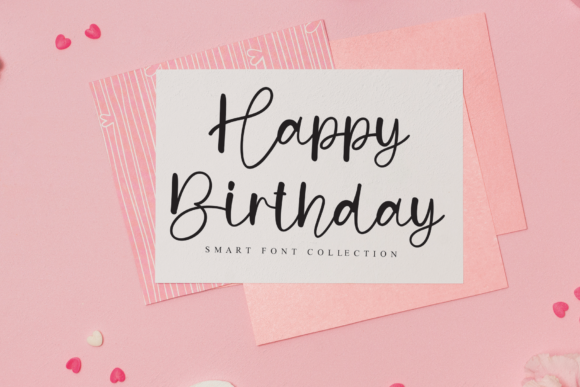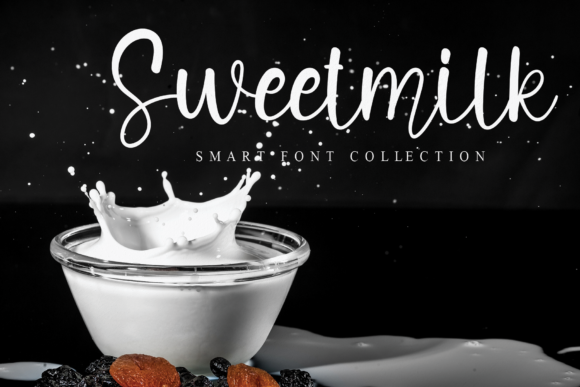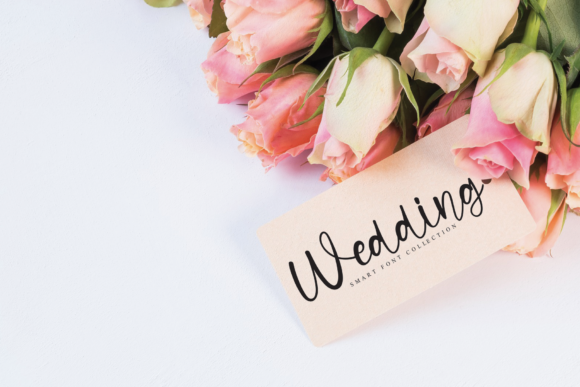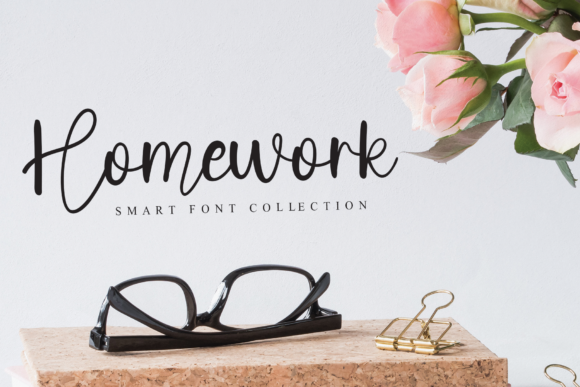
Beeflower Font: The Sweetest Addition to Your Design Projects
Are you looking for a font that exudes romance, elegance, and playfulness? Look no further than Beeflower Font! This dainty and unique script font is perfect for adding a touch of whimsy to your design projects, from love letters to wedding invitations, and everything in between.
What Makes Beeflower Font So Special?
Beeflower Font is a one-of-a-kind script font that boasts a delicate and charming aesthetic. Its intricate lettering and flowing curves make it perfect for creating beautiful, eye-catching designs that are sure to impress. Whether you’re a designer, crafter, or simply someone who loves to get creative, Beeflower Font is a must-have addition to your font collection.
Uses for Beeflower Font
The possibilities are endless when it comes to using Beeflower Font! Here are just a few ideas to get you started:
- Love Letters: Add a touch of romance to your love letters with Beeflower Font. Whether you’re writing to your sweetheart or penning a heartfelt letter to a friend, this font is sure to make your words feel extra special.
- Wedding Invitations: Make your wedding invitations truly unforgettable with Beeflower Font. This font is perfect for creating beautiful, elegant designs that set the tone for your special day.
- Design Projects: From branding and packaging to stationery and signage, Beeflower Font is a versatile addition to any design project. Use it to add a touch of whimsy and personality to your designs.
- Crafting: Beeflower Font is also perfect for crafters who love to get creative with paper crafting, scrapbooking, and other DIY projects. Use it to add a personal touch to your handmade creations.
Why Designers and Crafters Love Beeflower Font
So, what is it about Beeflower Font that designers and crafters love so much? Here are just a few reasons why this font has become a favorite among creatives:
- Unique and Eye-Catching: Beeflower Font is a true standout in the world of script fonts. Its unique lettering and delicate curves make it a great way to add visual interest to your designs.
- Romantic and Elegant: Beeflower Font exudes romance and elegance, making it perfect for designs that require a touch of sophistication.
- Versatile: Whether you’re creating digital designs or handmade crafts, Beeflower Font is a versatile addition to your toolkit.
Tips for Using Beeflower Font
Here are a few tips for getting the most out of Beeflower Font:
- Use it Sparingly: Because Beeflower Font is so elegant and eye-catching, it’s best to use it sparingly. Try using it as a headline or accent font to add visual interest to your designs.
- Pair it with Other Fonts: Beeflower Font pairs beautifully with other fonts, especially sans-serif fonts like Arial or Helvetica. Try pairing it with a bold font for a striking contrast.
- Experiment with Colors: Beeflower Font looks beautiful in a variety of colors, from soft pastels to rich jewel tones. Experiment with different colors to find the perfect look for your design.
In conclusion, Beeflower Font is a beautiful and unique script font that’s perfect for adding a touch of romance and elegance to your design projects. Whether you’re a designer, crafter, or simply someone who loves to get creative, this font is a must-have addition to your toolkit. With its delicate curves, intricate lettering, and versatile uses, Beeflower Font is sure to become a favorite among creatives. So why wait? Download Beeflower Font today and start creating beautiful designs that are sure to impress!